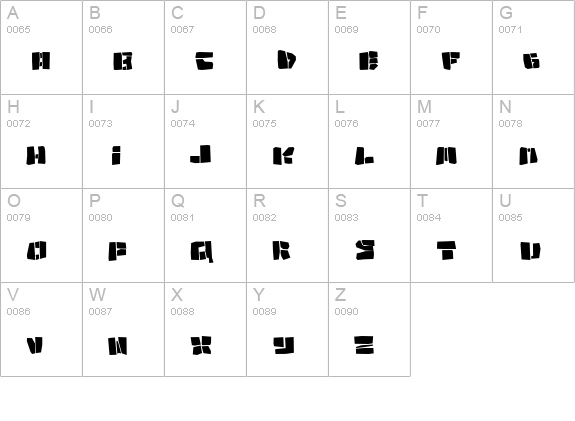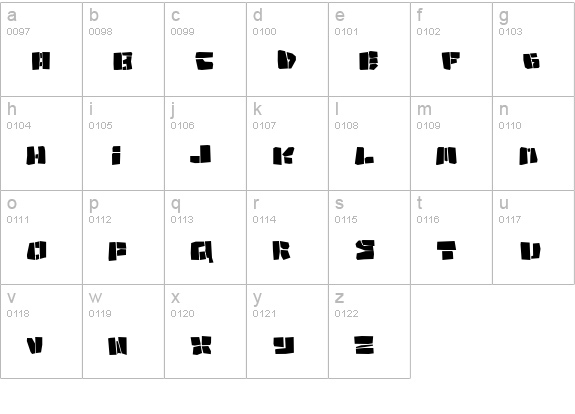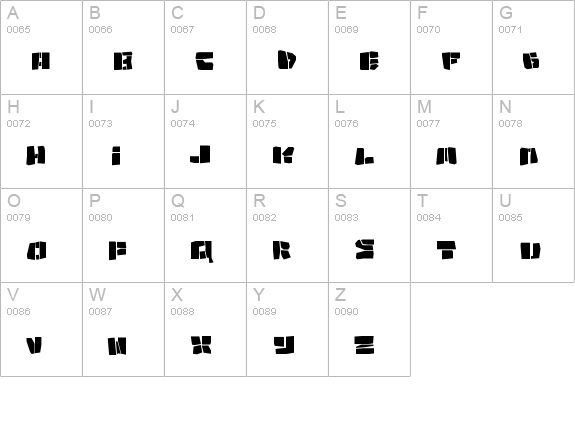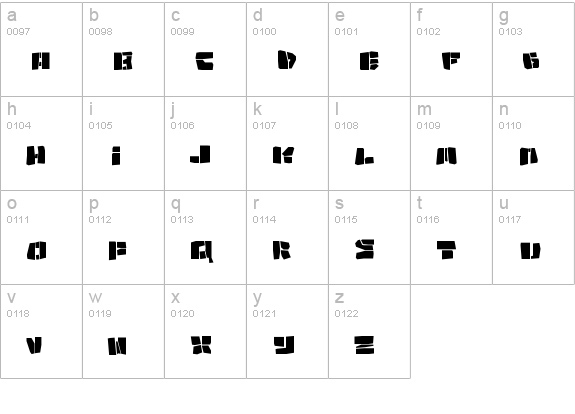
Introducing Copycut font, a versatile and modern typeface perfect for a wide range of design projects. With its clean lines and geometric shapes, Copycut exudes a sense of sophistication and professionalism. This font is ideal for branding, advertising, packaging, and more. What sets Copycut font apart is not only its sleek design but also the fact that it is available for free download. Yes, you read that right - Copycut font is freely available to download at FontsMarket.com. This means that you can add this stylish font to your collection without breaking the bank. Whether you are working on a new logo, creating eye-catching posters, or designing a sleek website, Copycut font will elevate your projects to the next level. With its bold presence and modern appeal, this font is sure to make a statement wherever it's used. Don't miss out on the opportunity to enhance your designs with Copycut font - download it for free today at FontsMarket.com!